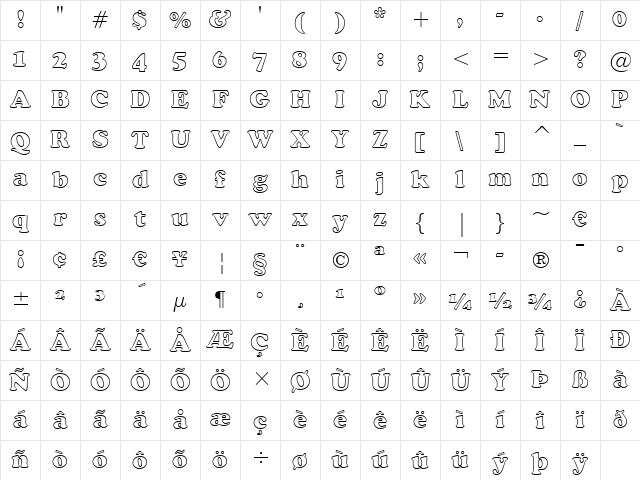
Cooper BlkOul BT Black
Design Context for Cooper BlkOul BT
Cooper BlkOul BT is a composed and adaptable typeface that performs quietly and consistently across a wide range of design contexts.
Pro Tip: Use Cooper BlkOul BT in both headline and body roles to test its range before committing to a single application.